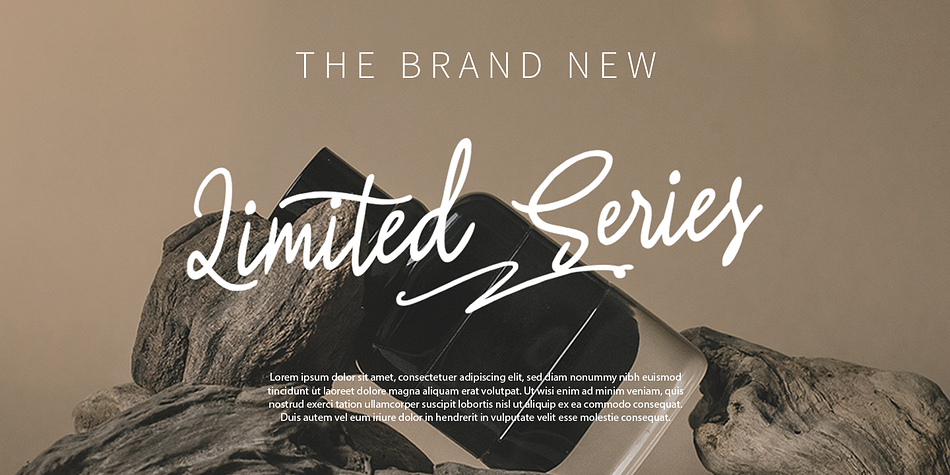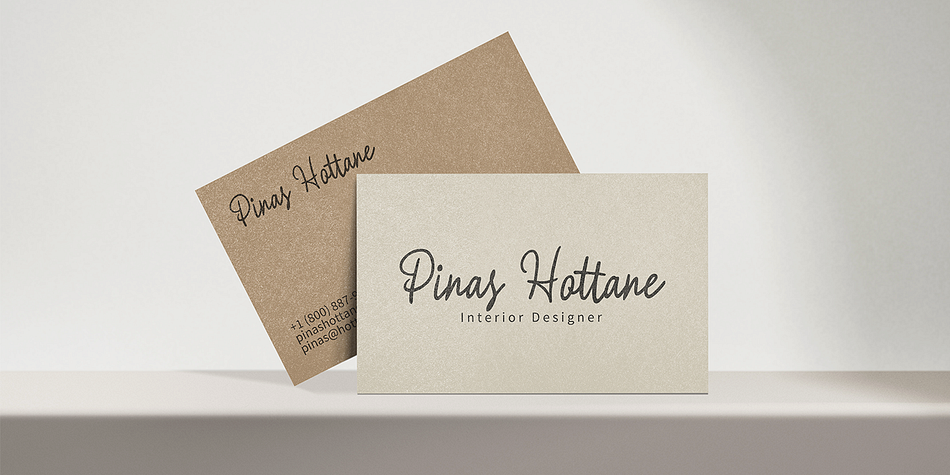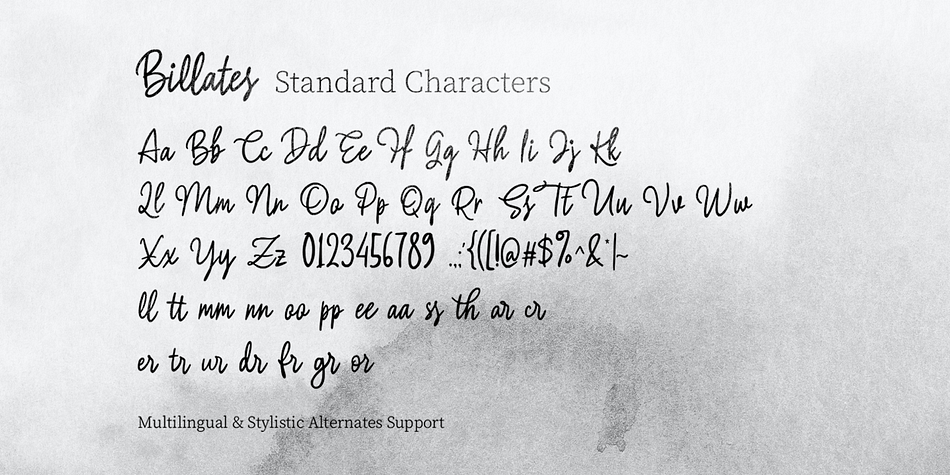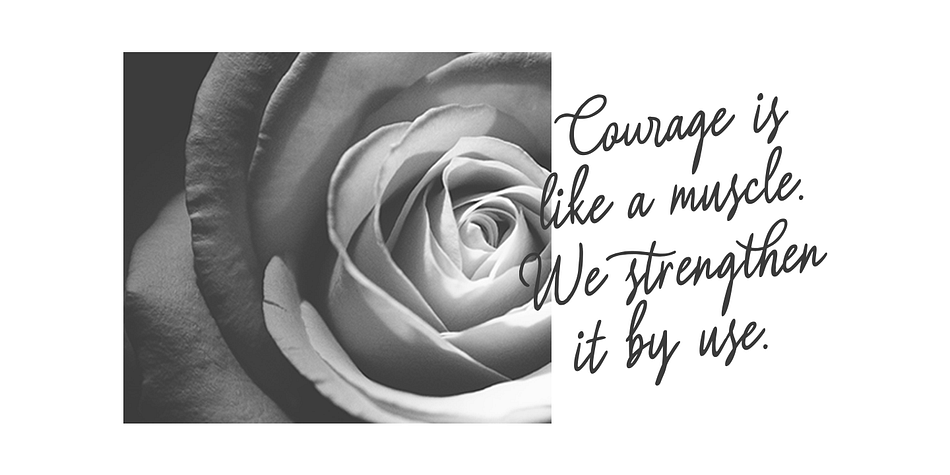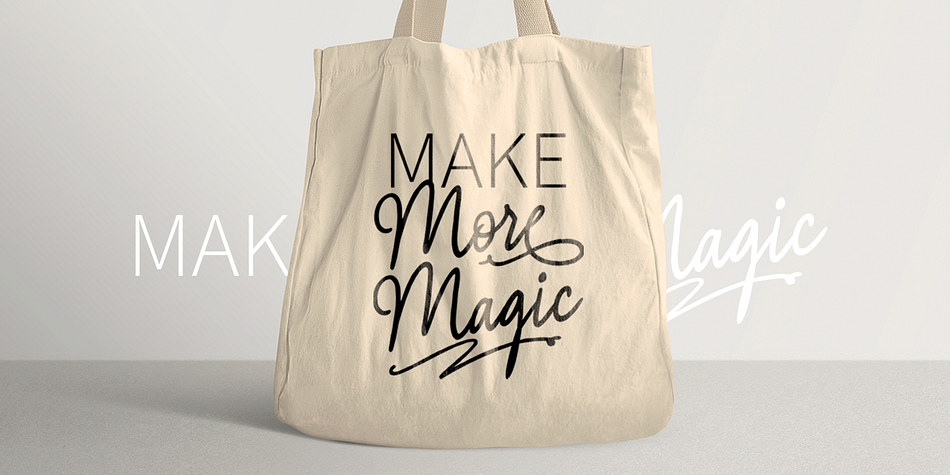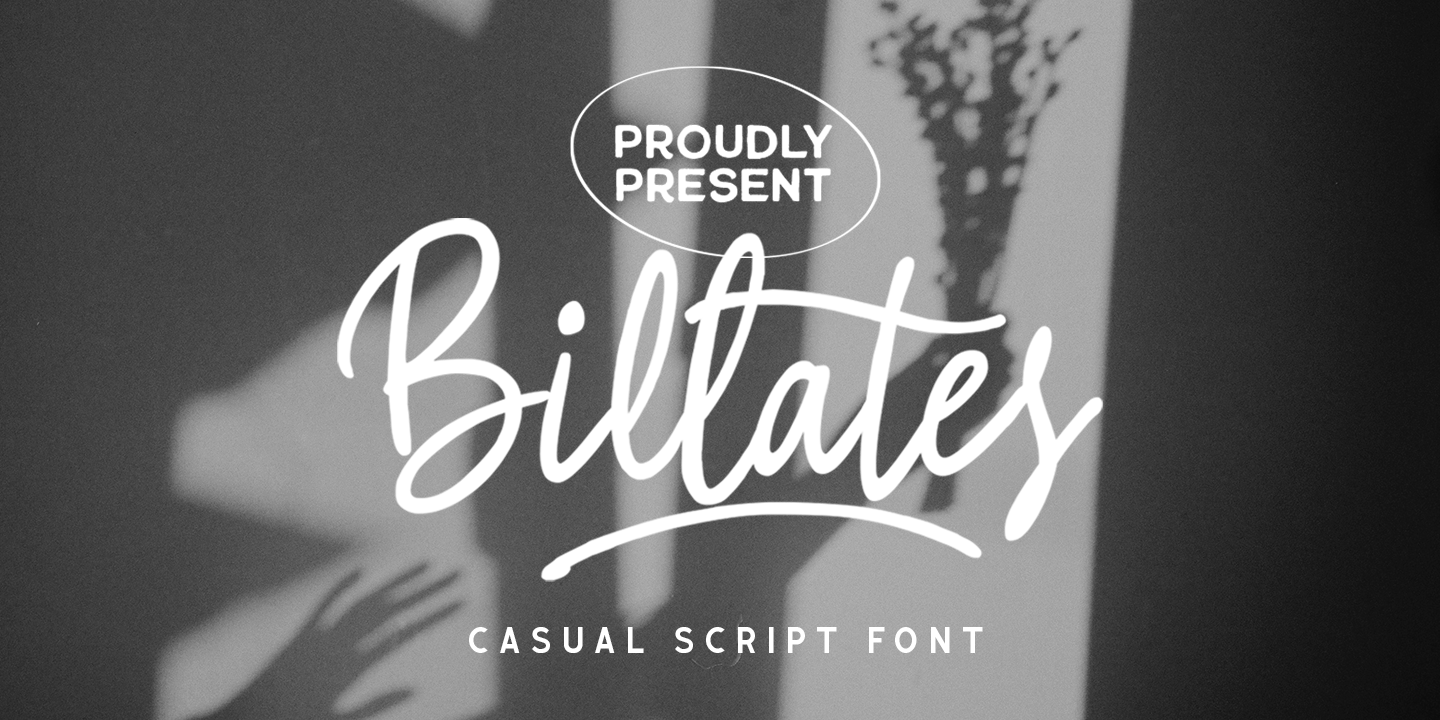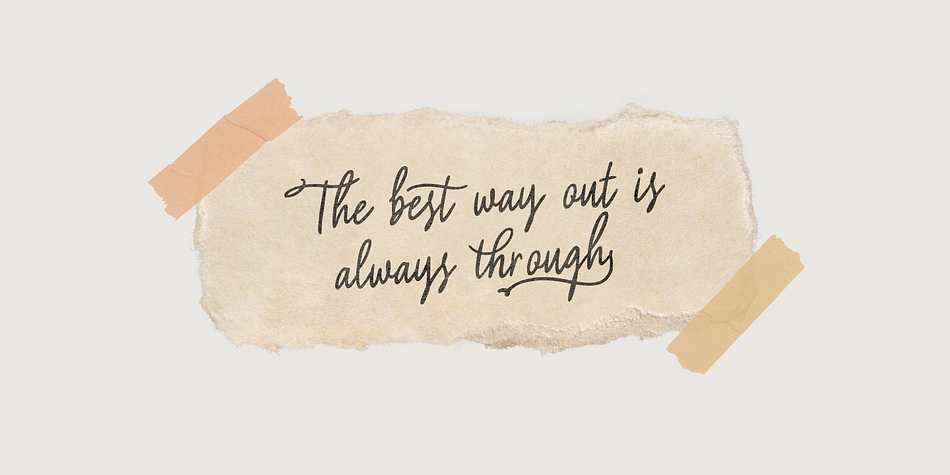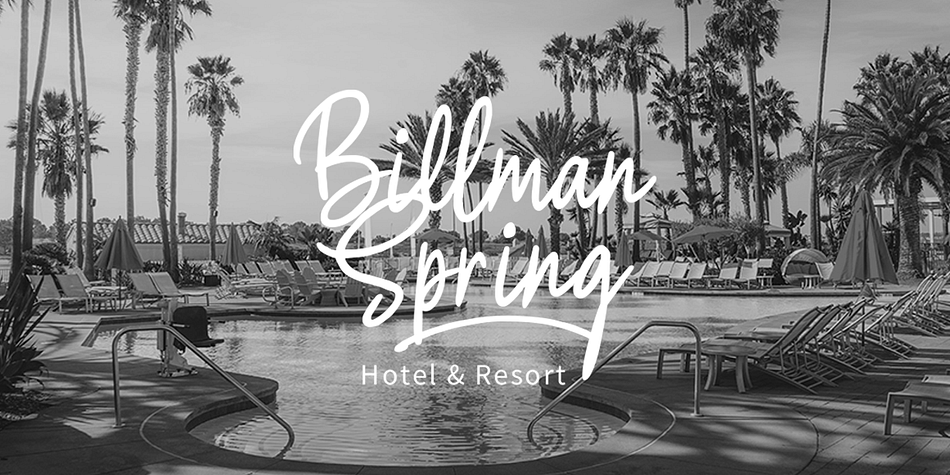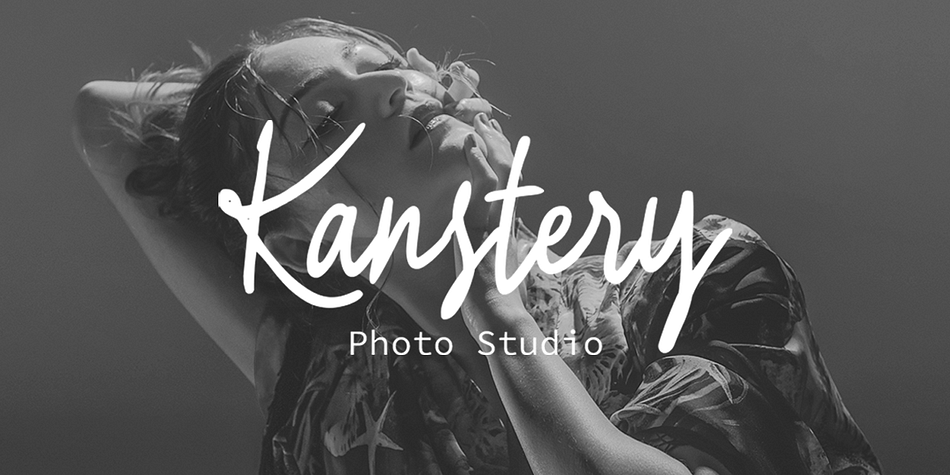
Billates
Designed by Hendry Juanda, Billates is a brush script font family published by Letterhend Studio.
Looking for a script font with a casual flair? Look no further than Billates! With its natural and free-flowing style, this font exudes a relaxed and informal look that is perfect for capturing a laid-back atmosphere. From handwritten notes to product packaging, Billates brings a touch of casual elegance to your design projects.
- Alternates & Ligatures